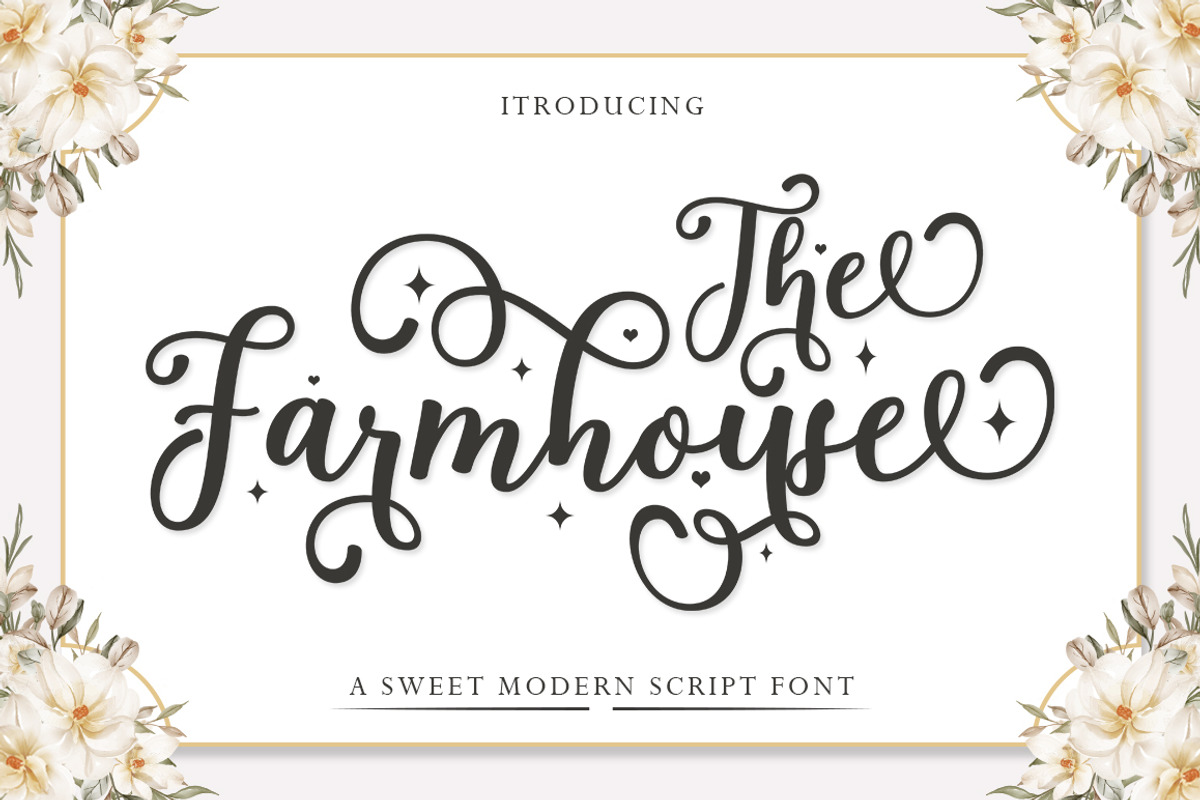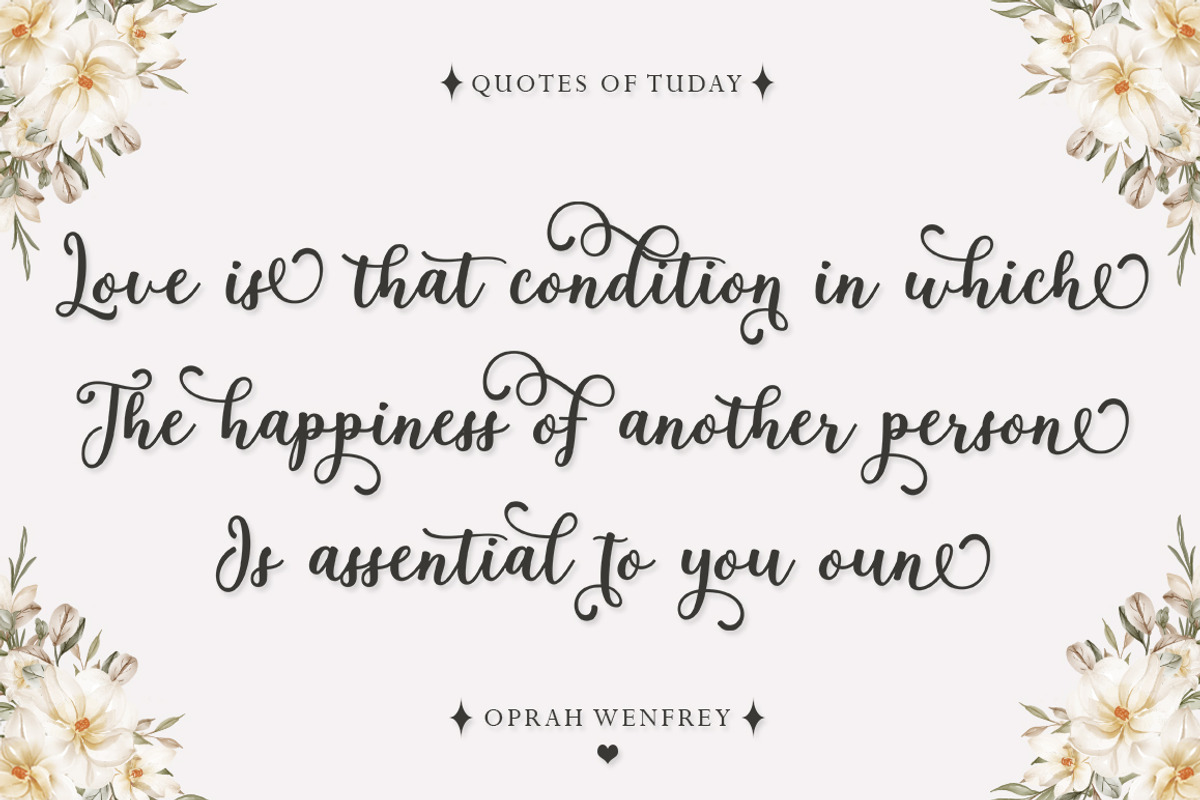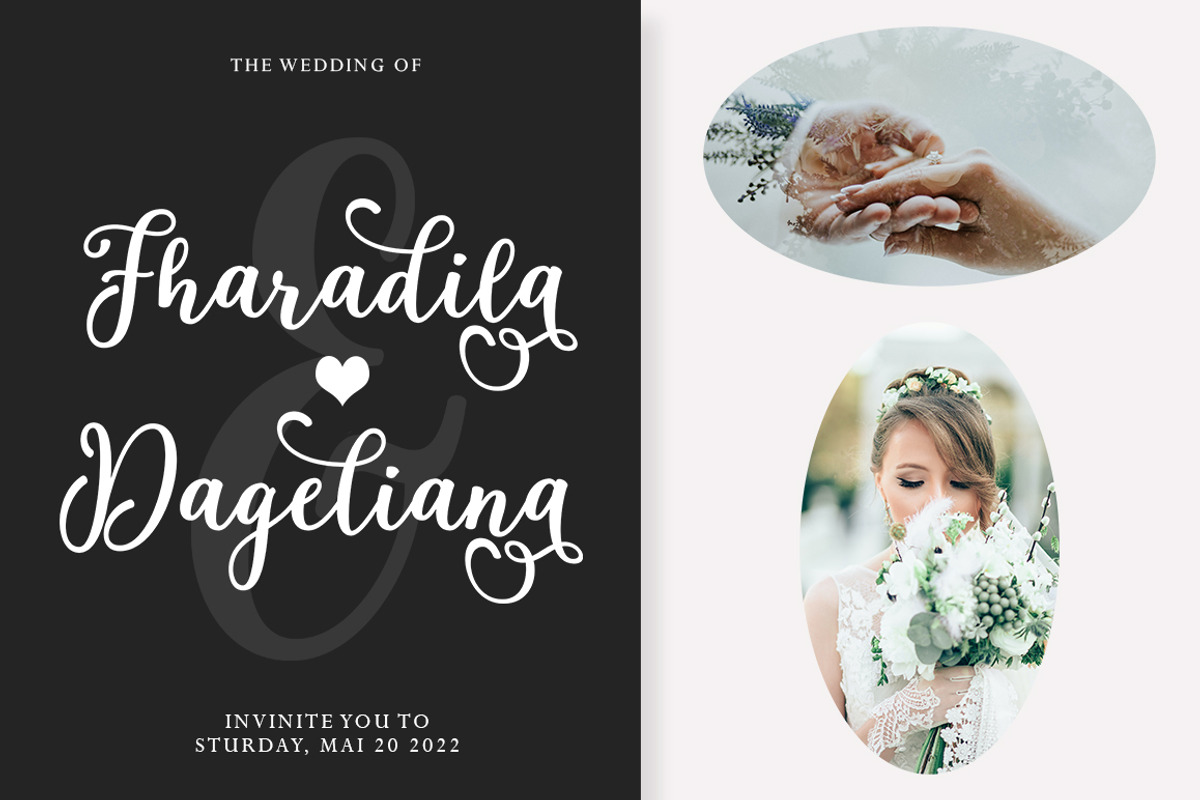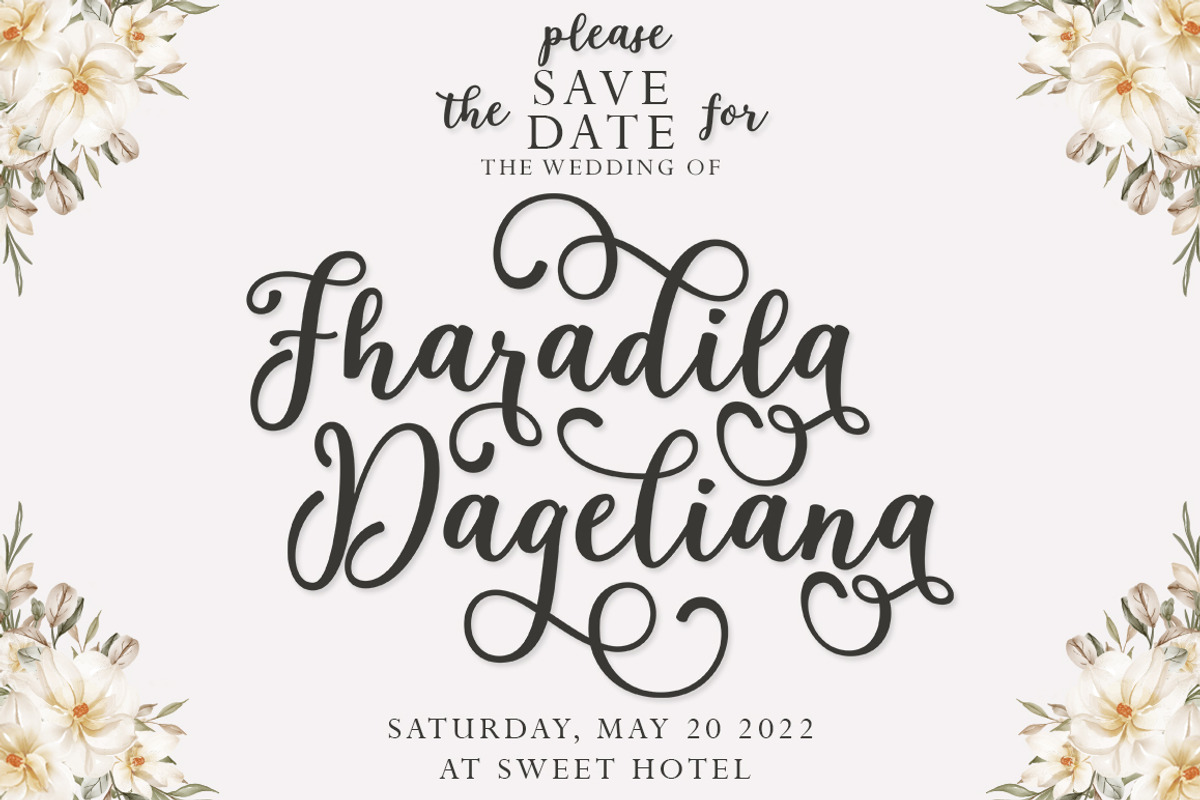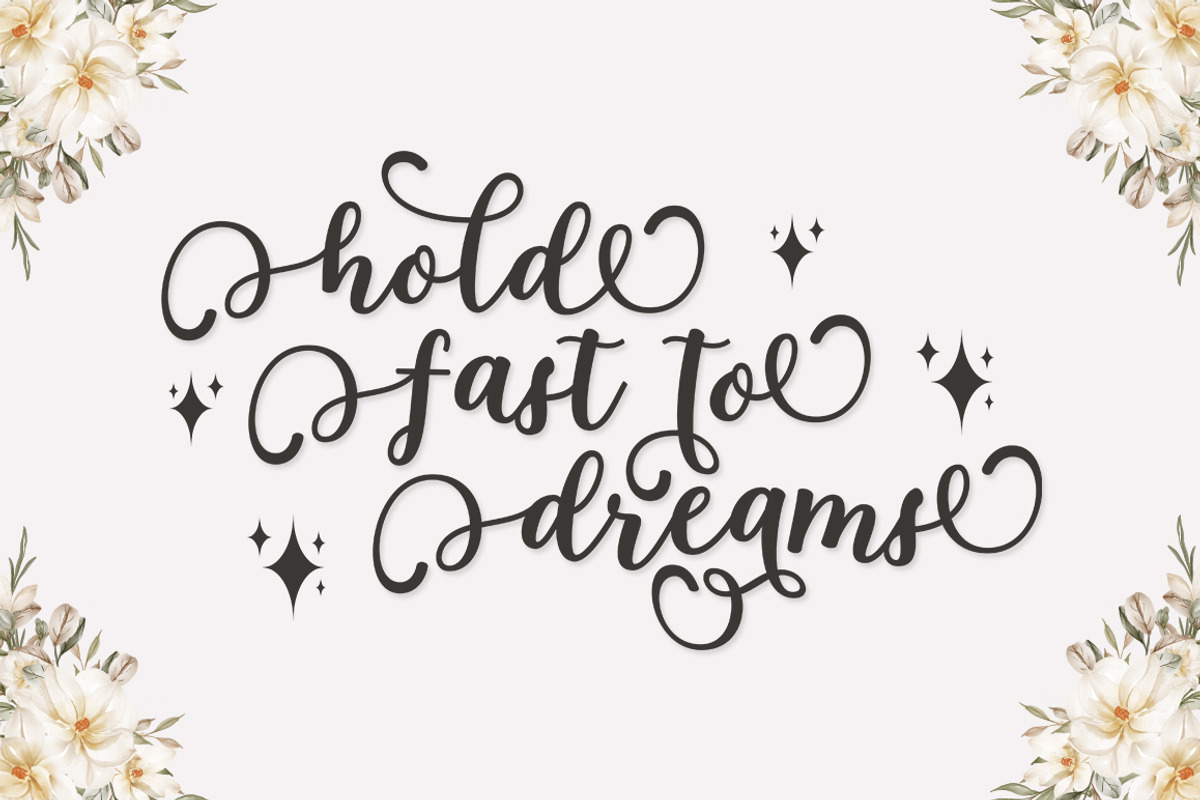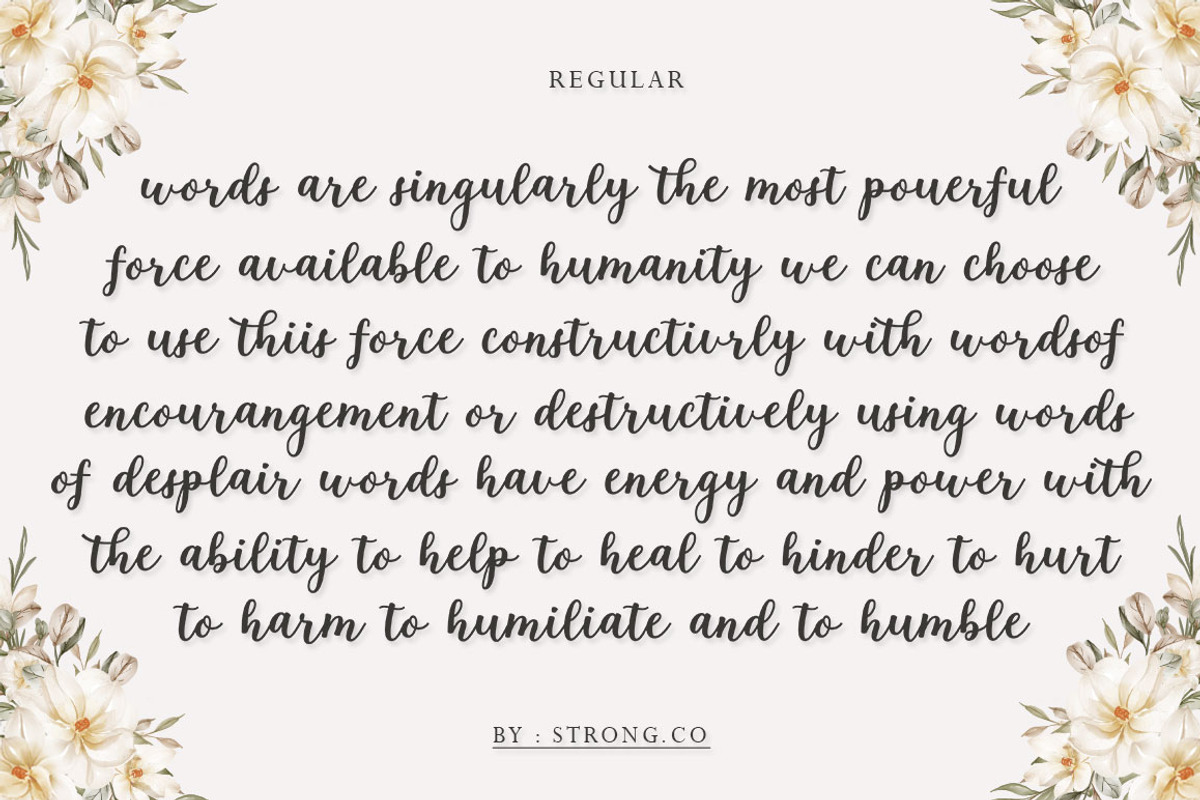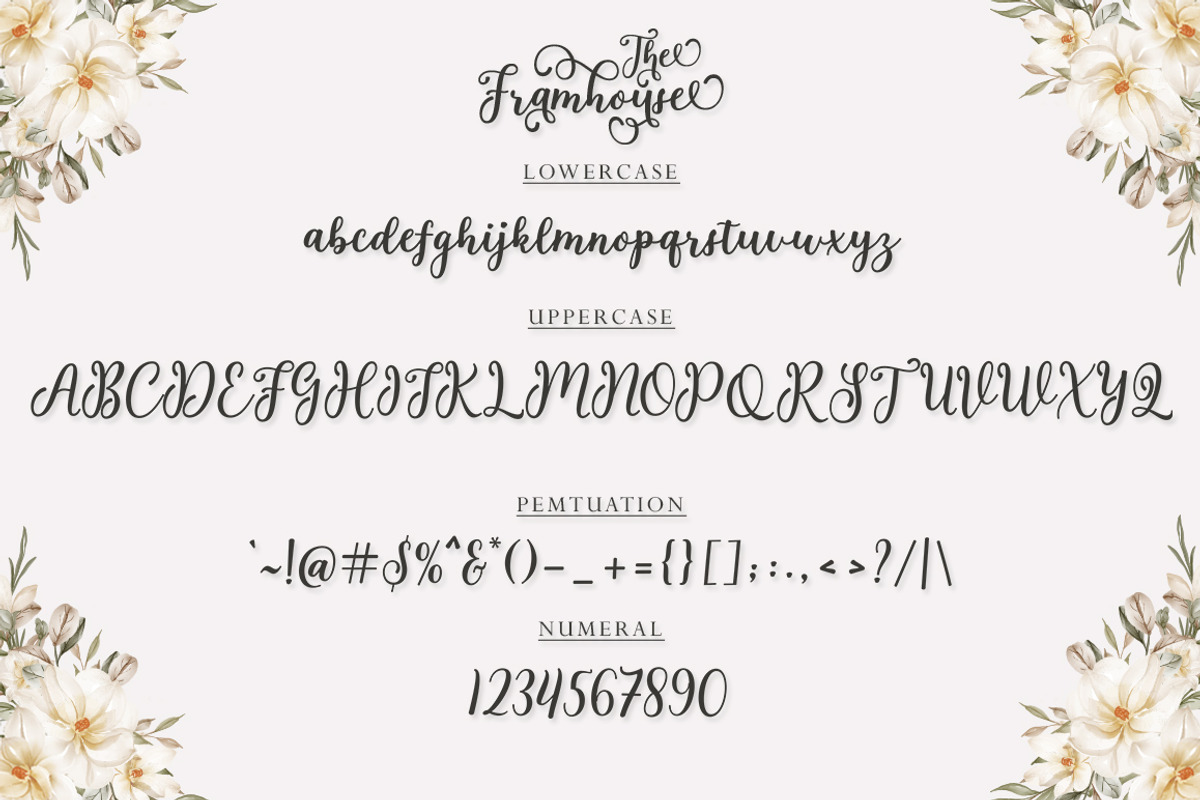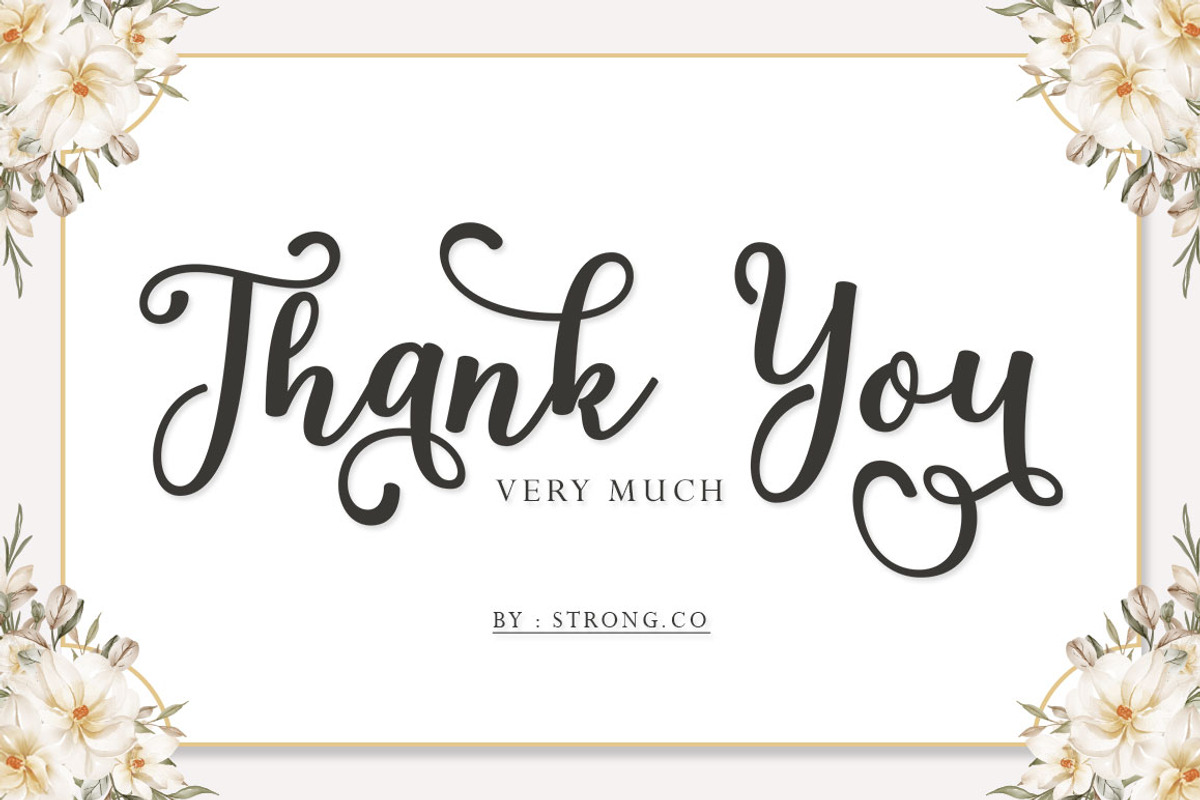
The Farmhouse
The Farmhouse a modern calligraphy font with alternates, love swash, beginning swash and ending swash. It features ligatures characters that will take your projects to the next level!
This font is PUA code which means you can easily access all the glyphs that are full of natural! It also features many special features including glyphs. font designs that are made for various vector designs, printing such as digital wedding blogs, online shops, social media, while printing can be used in the field of product clothing, accessories, bags, pins, logos, business cards, watermarks and many others ...
so it can make your product look natural and attractive, and also Multilingual support!!!